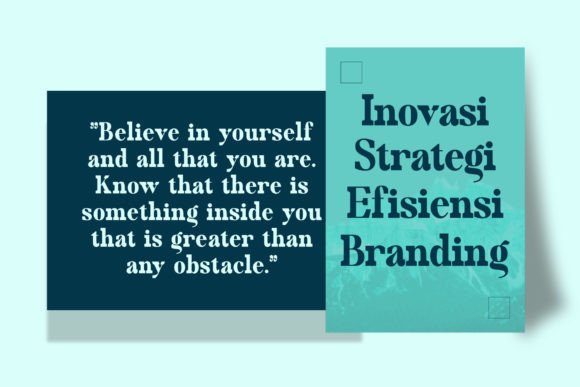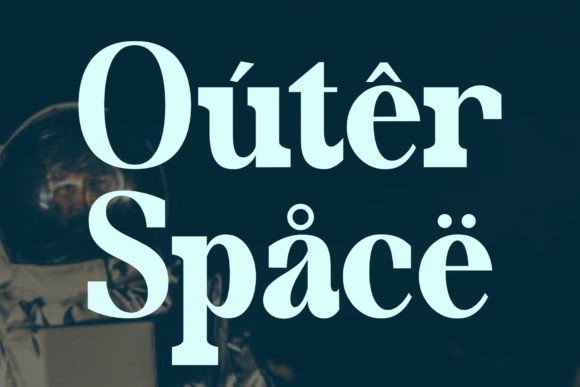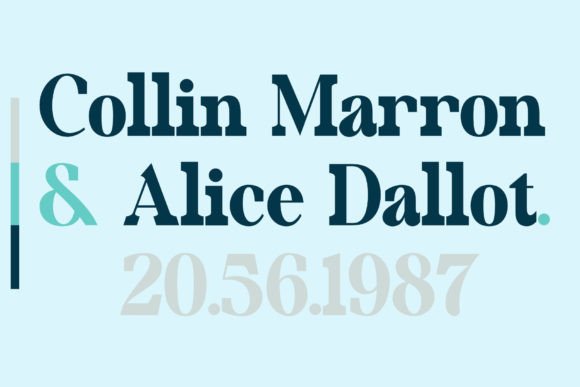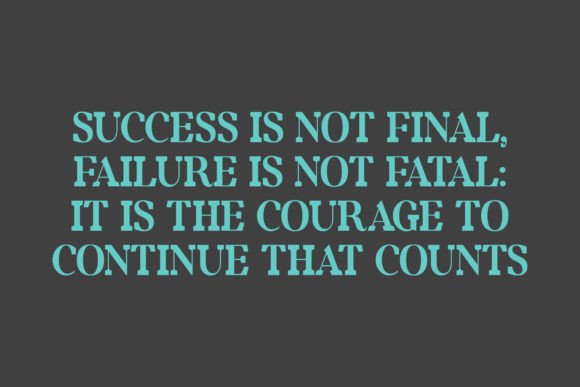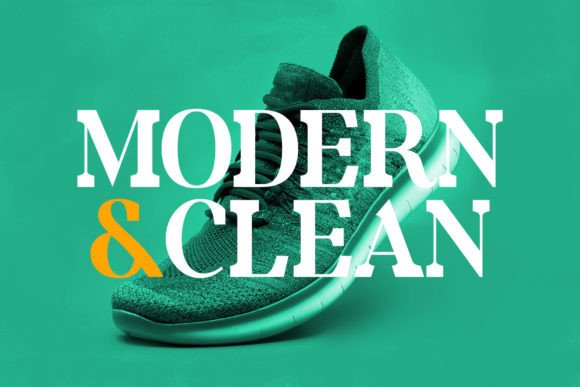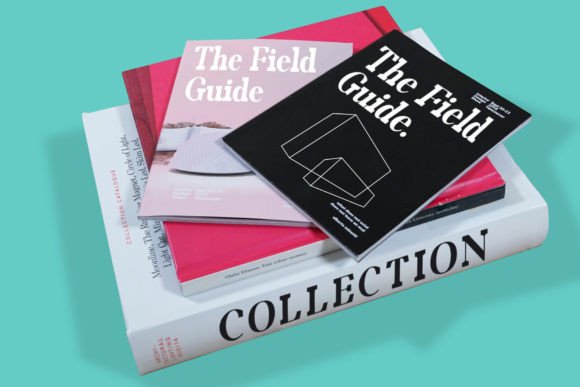
Discovering the Magic of Molgen Font
Have you ever stumbled upon a font that instantly sparks creativity and transports you to a world of endless possibilities? For many designers, this moment of discovery is a defining moment in their creative journey. It’s the moment when the perfect font comes along, and everything just clicks. For those who have been searching for this elusive font, we’re excited to introduce you to the Molgen Font – a game-changing design resource that’s about to revolutionize your creative project.
As a versatile and high-quality font, Molgen is the perfect blend of classic serifs and contemporary display elements. With its unique balance of tradition and innovation, it’s no wonder why designers are flocking to this incredible font. Whether you’re working on a logo, headline, or invitation, Molgen Font is sure to deliver elegance and sophistication with every download. And the best part? You can enjoy this high-quality font with a transparent background, making it easy to integrate into your design.
Introduction to Molgen Font
But what sets Molgen apart from other fonts? For starters, its serifs are pronounced yet not overwhelming, making it an ideal choice for a wide range of applications. Each character is meticulously crafted, ensuring that every letter oozes character and charm. And with its free download option, you can start experimenting with this incredible font right away. Whether you’re a seasoned designer or just starting out, Molgen Font is a valuable resource that’s sure to elevate your creative project to new heights.
Key Features of Molgen Font
Honest Review: Molgen Font
One of the standout features of the Molgen Font is its high quality design. The font is clean, modern, and has a unique aesthetic that works well for creative projects that require a touch of sophistication.
- High-quality design with a modern aesthetic
- Works well for creative projects that require a touch of sophistication
- The font may not be suitable for projects that require a lot of customization
- The transparent background may not work well for all design applications
Overall, I’m really impressed with the Molgen Font. It’s a great addition to any designer’s toolkit and is perfect for creative projects that require a high-quality font with a modern aesthetic.
How to Use Molgen Font
The Molgen Font is a high-quality design resource ideal for creative projects that require a unique and eye-catching style. With its transparent background, this font is perfect for overlaying on images or backgrounds.
Tips for Getting the Most Out of Molgen Font
To get the most out of the Molgen Font, experiment with different font sizes, colors, and combinations to achieve the desired look.
The Molgen Font is ideal for:
- Marketing materials and brochures